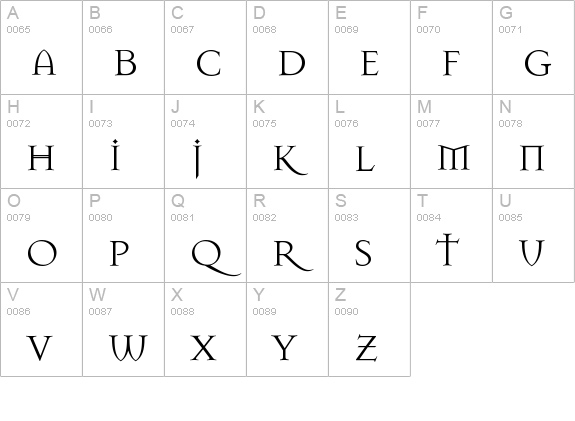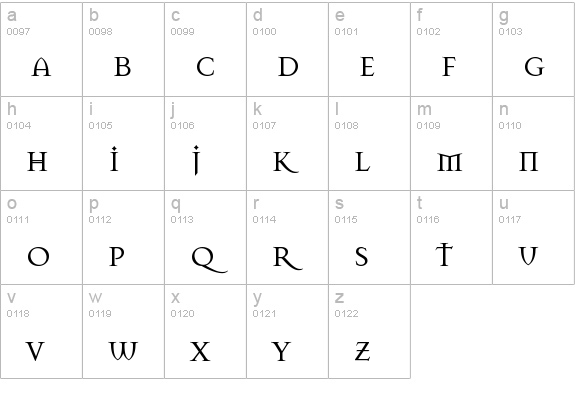
Mason Font Details
Mason font is a stylish and modern typeface that exudes sophistication and elegance. With its clean lines and bold presence, this font is perfect for creating eye-catching designs and professional-looking projects. One of the best aspects of Mason font is that it is completely free to use. Whether you are a graphic designer, a blogger, or simply someone who loves experimenting with typography, you can freely download Mason font at FontsMarket.com. This means that you can incorporate this beautiful font into your creative endeavors without any cost or restrictions. Mason font offers a wide range of variations, from regular to bold, allowing you to choose the perfect weight for your design needs. Its versatility enables it to be used in various contexts – from headlines and logos to body text and captions. The smooth and balanced letterforms of Mason font make it a great choice for both digital and print media. Designed with precision and attention to detail, Mason font stands out among other typefaces with its unique personality and timeless appeal. It is the ideal choice for those seeking a font that effortlessly combines modern aesthetics with classic elegance. So, whether you are a professional designer or someone who simply appreciates the beauty of typography, don't miss out on the opportunity to download Mason font for free at FontsMarket.com. Elevate your design projects with this versatile and visually stunning typeface, and let your creativity shine with Mason font.